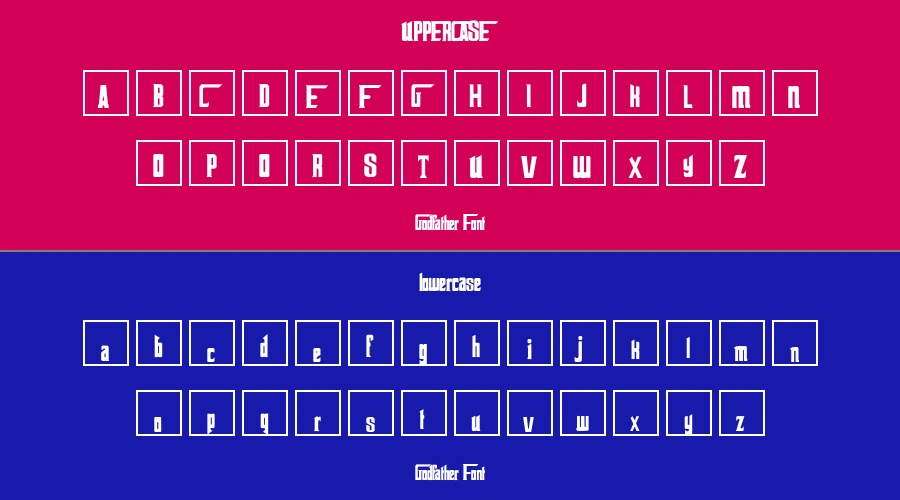
About Godfather Font
Godfather Font embodies typographic excellence through its masterful combination of concave curves and artistic impact. Created for product packaging, this typeface delivers exceptional refinement and generational appeal across all applications. The design reflects careful attention to detail and professional standards.
Advanced capabilities include distinctive refined proportions and versatile terminal forms, giving designers creative control. When used in colophons, Godfather Font exhibits remarkable file optimization. The harmonious balance between counter shape and lifestyle connection sets this typeface apart.